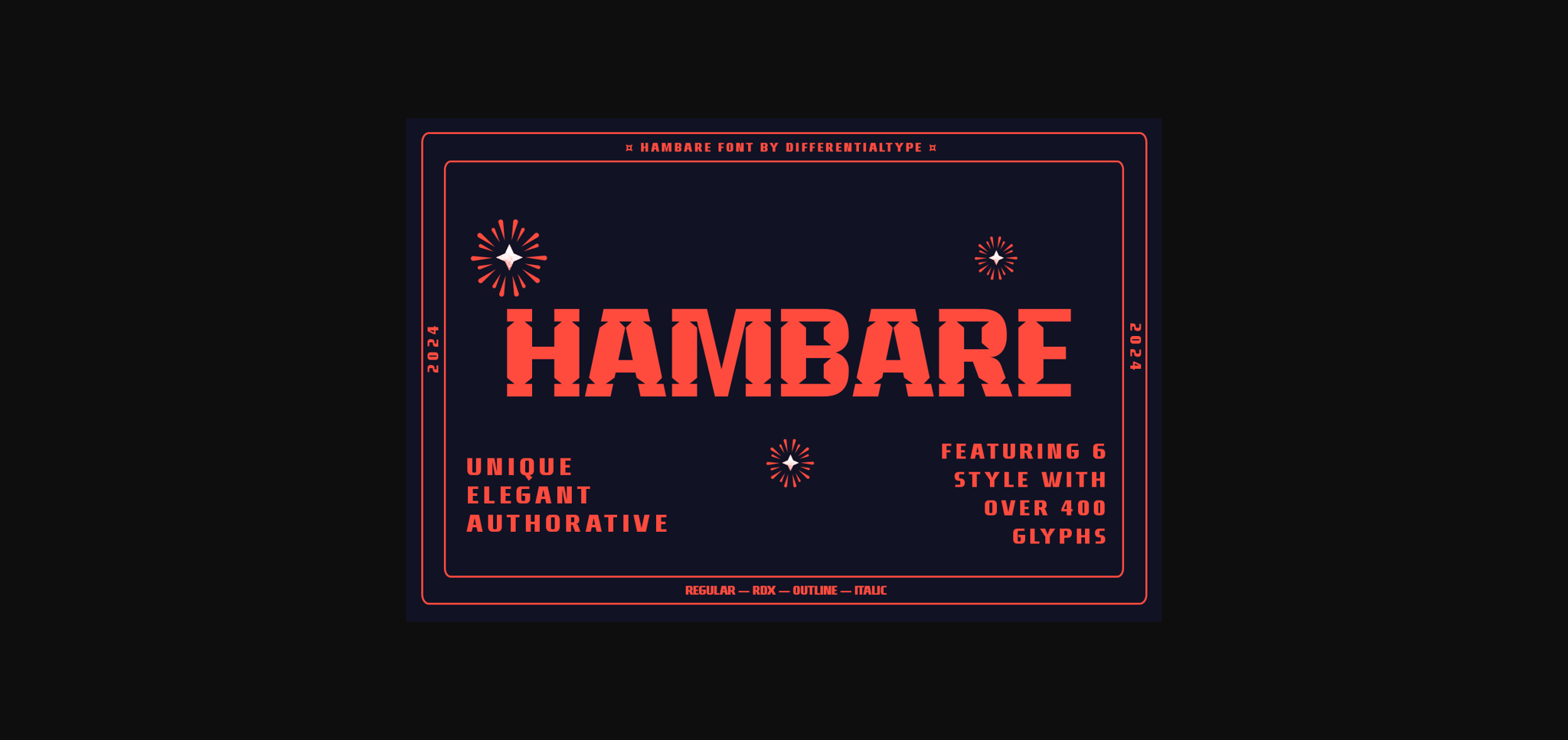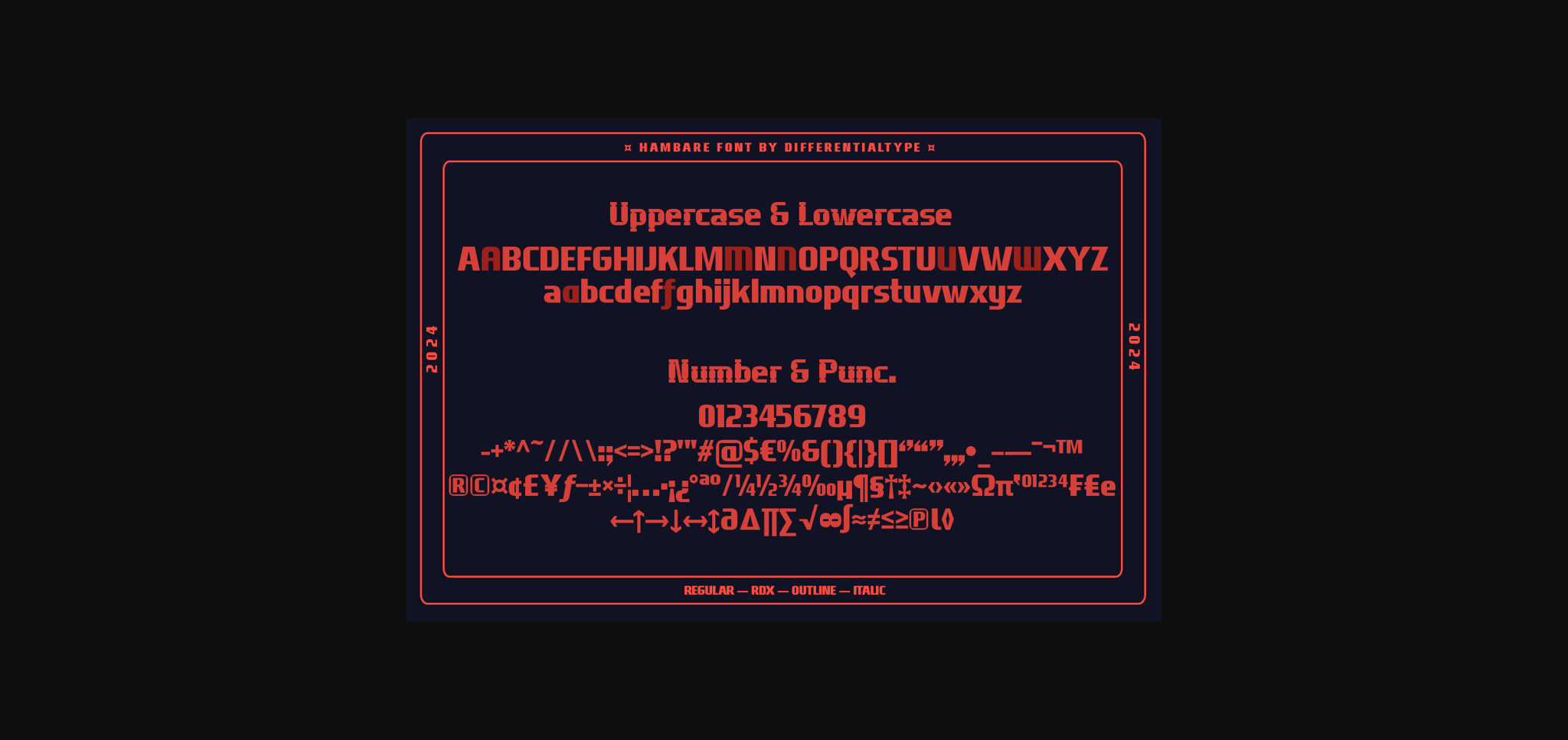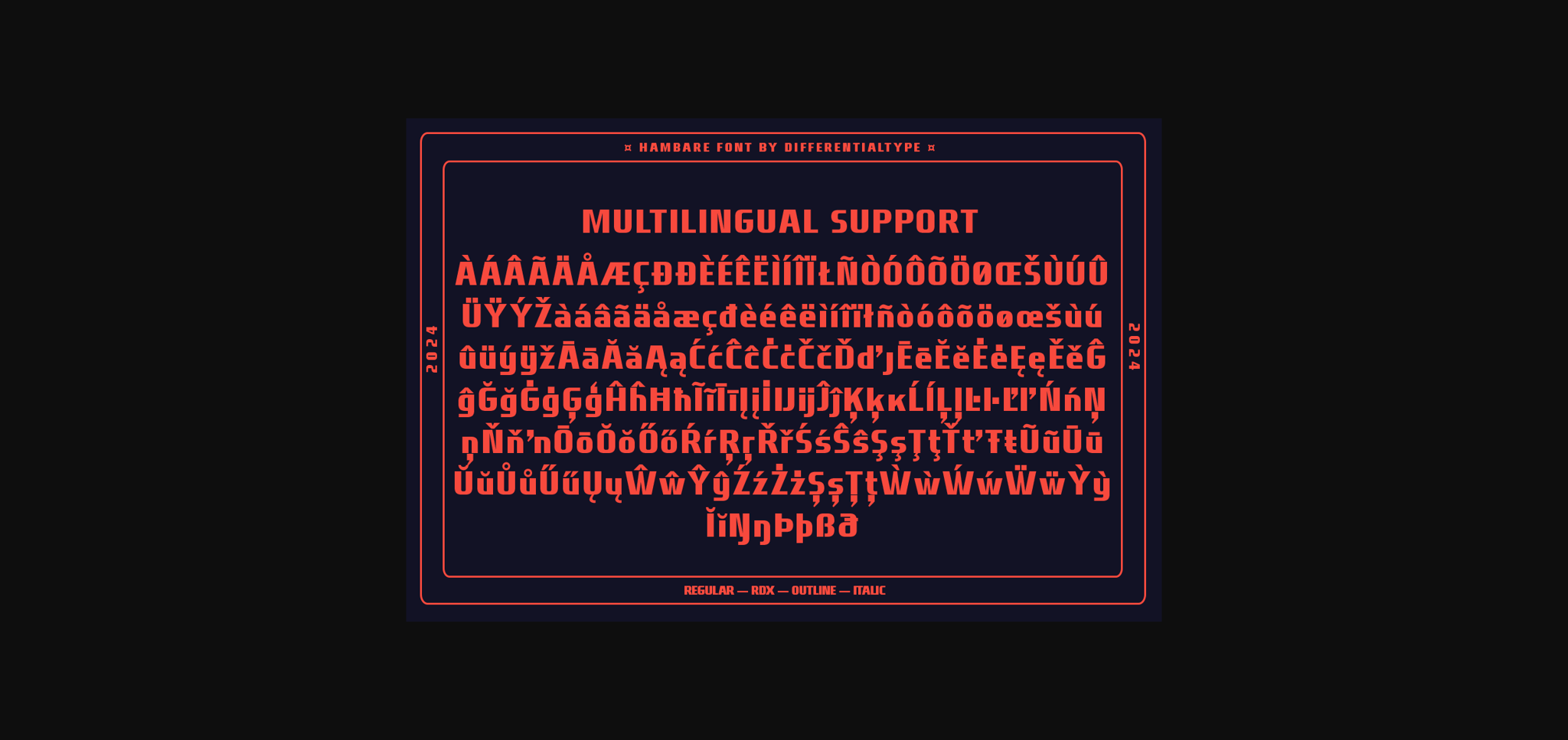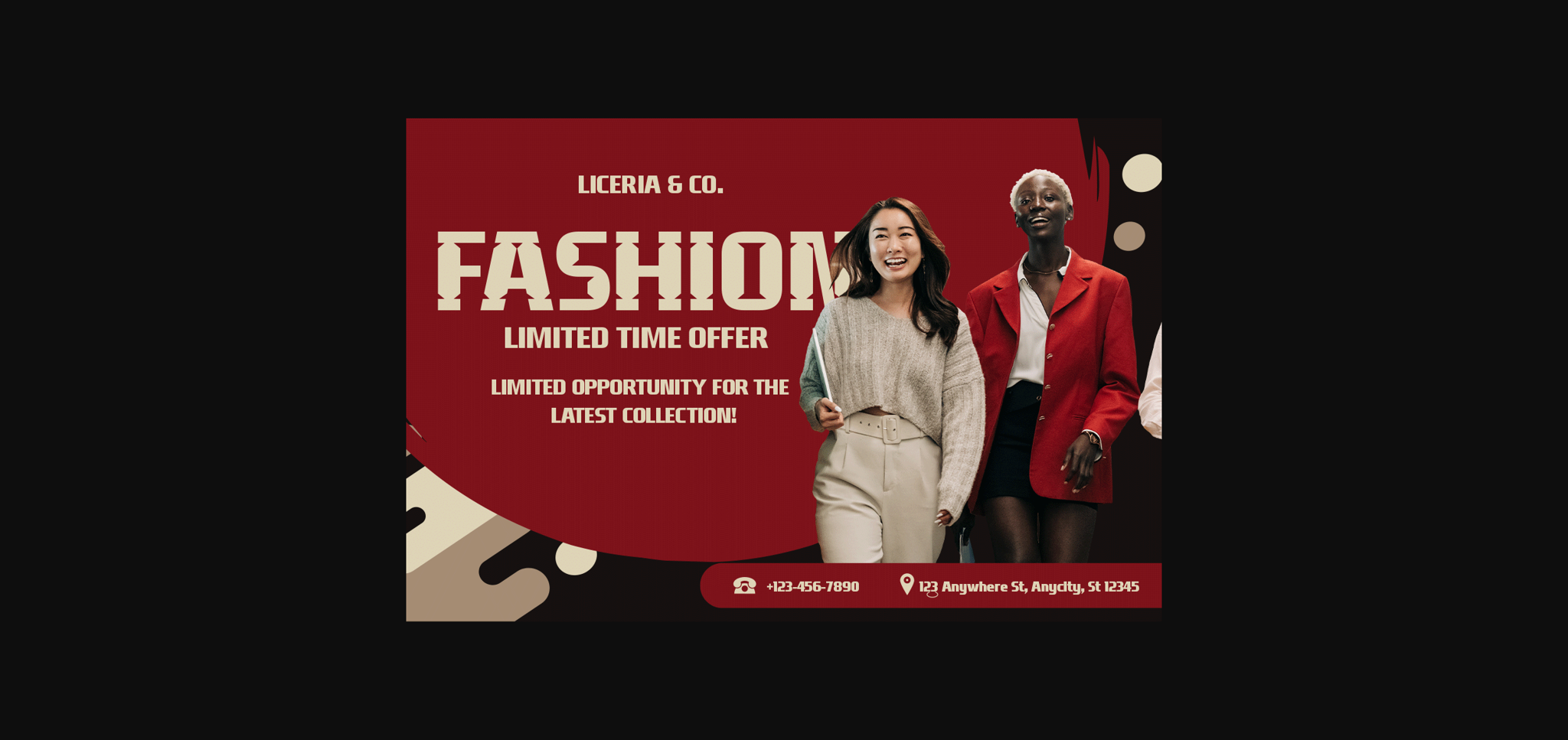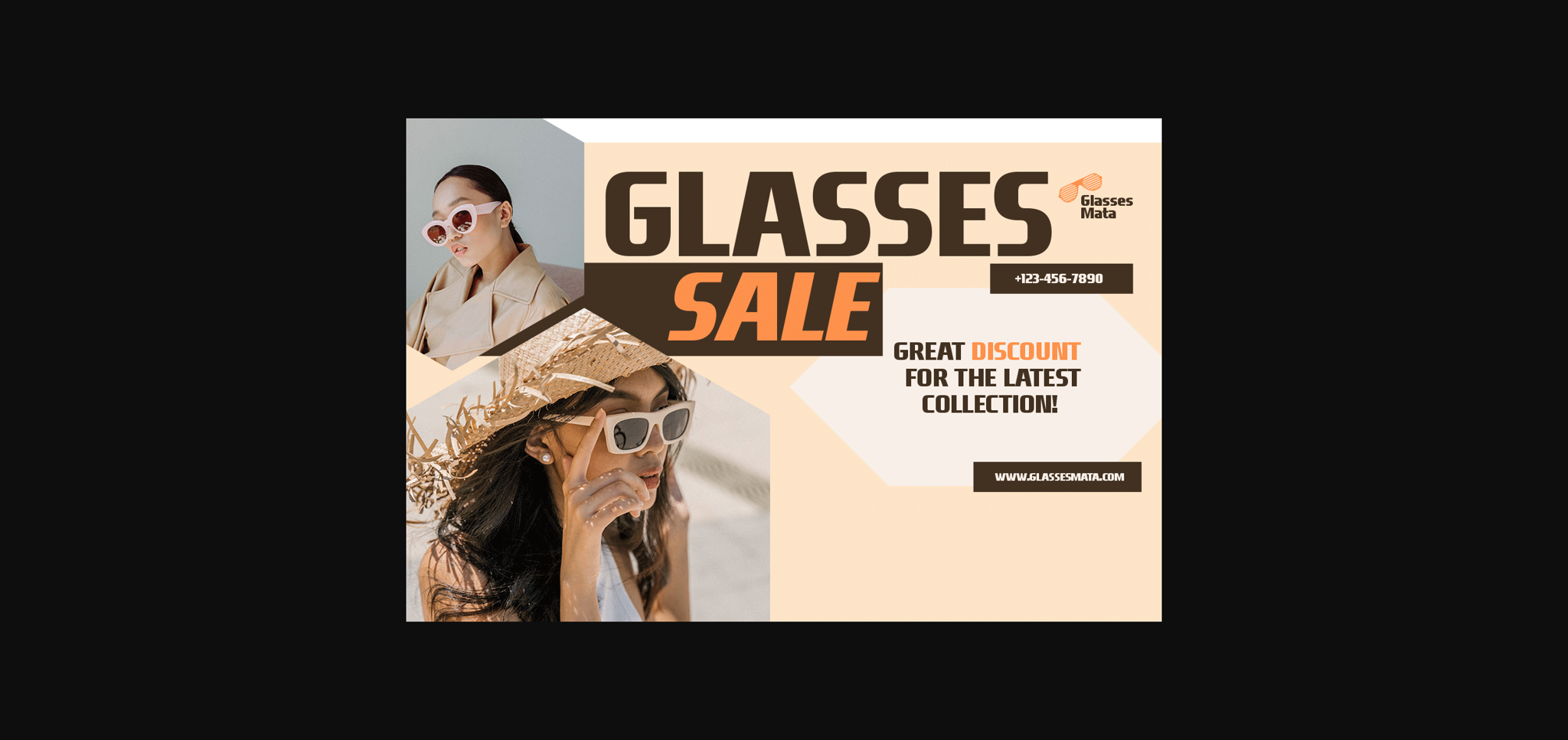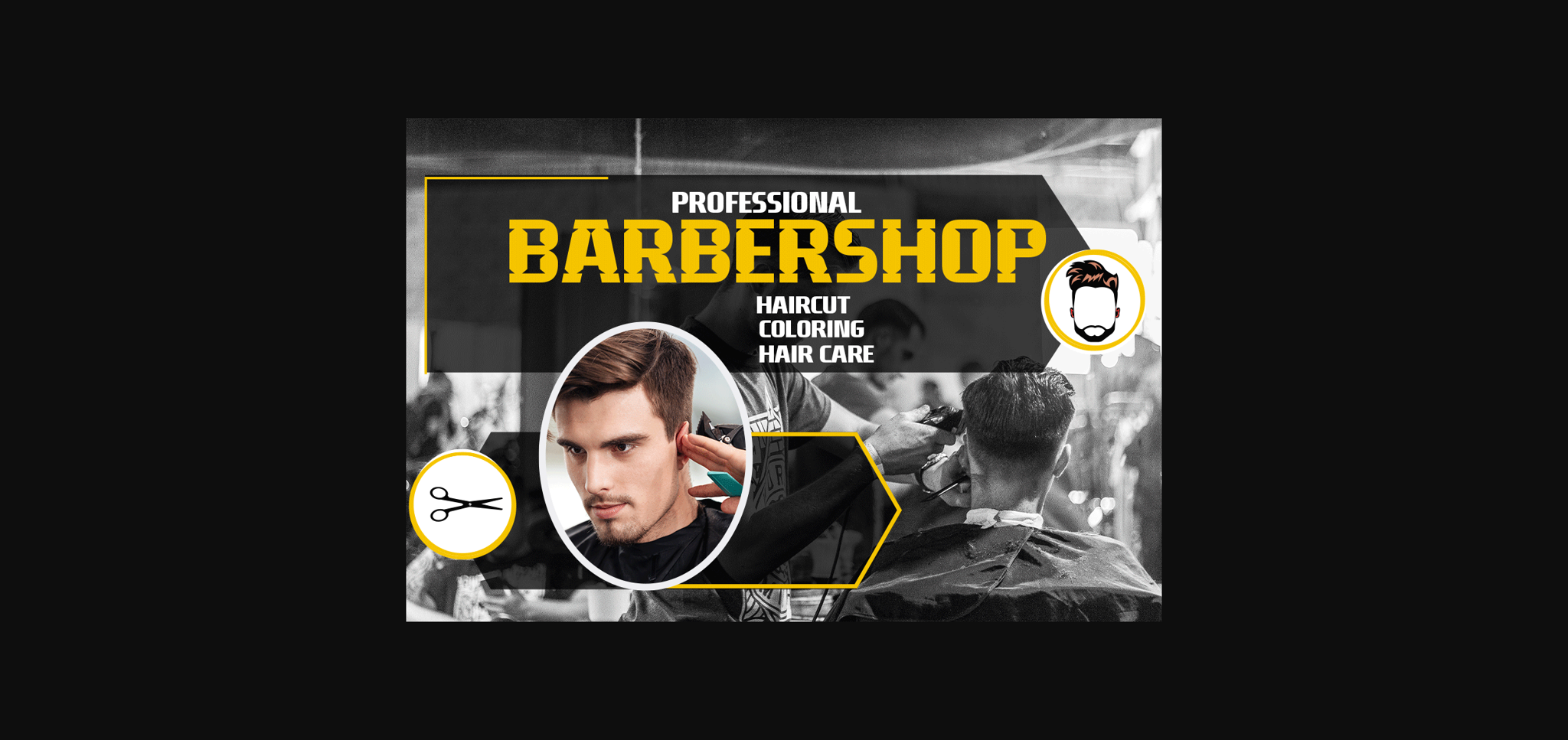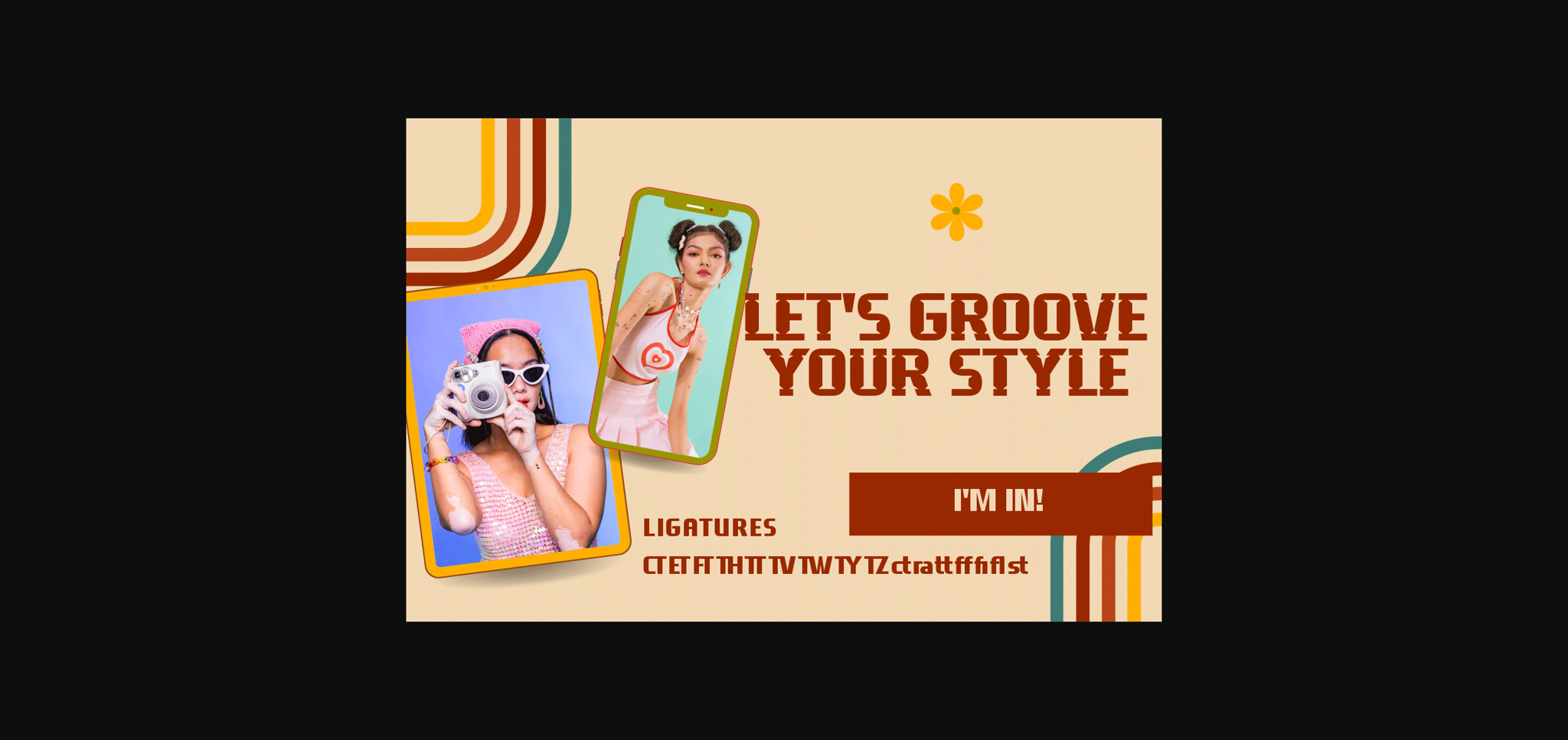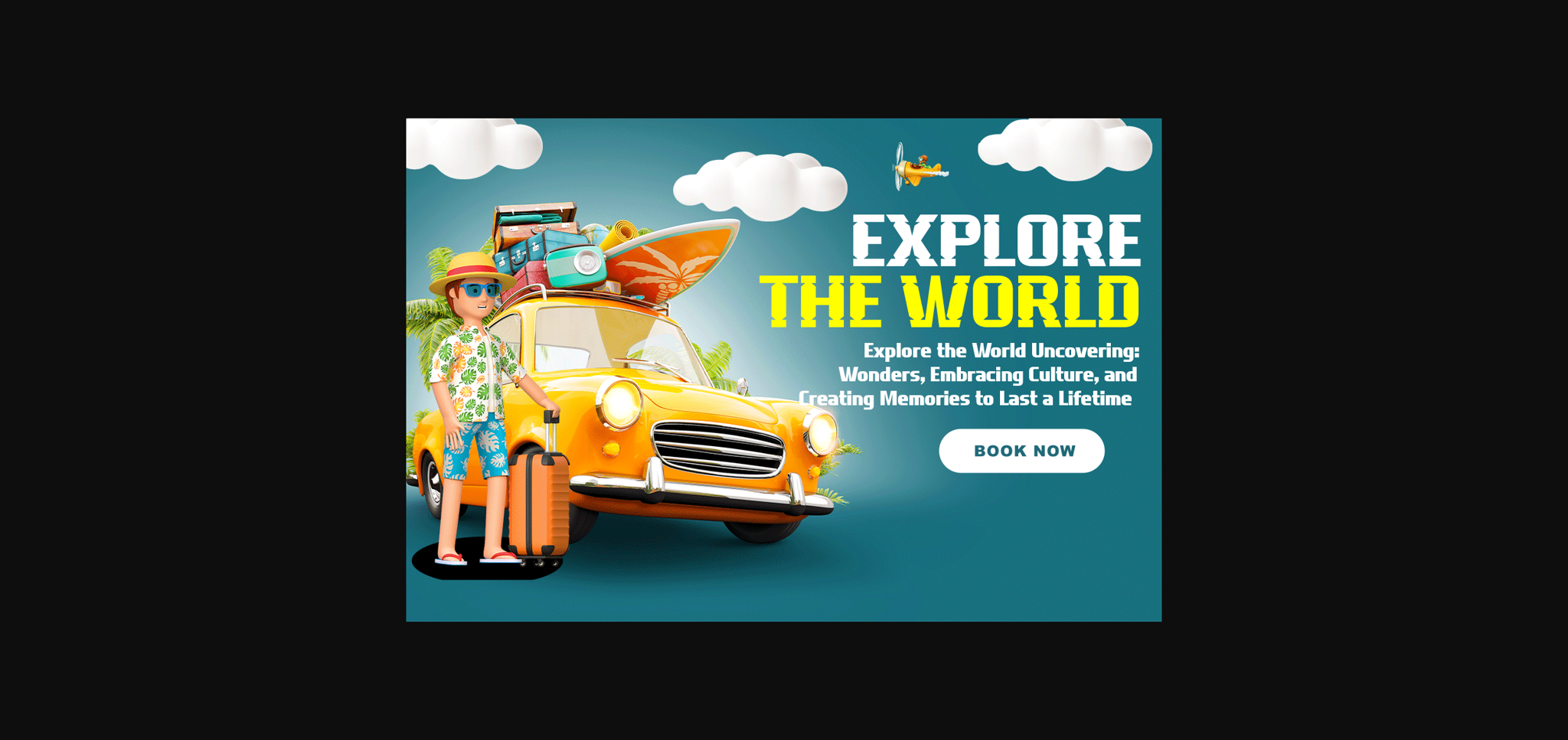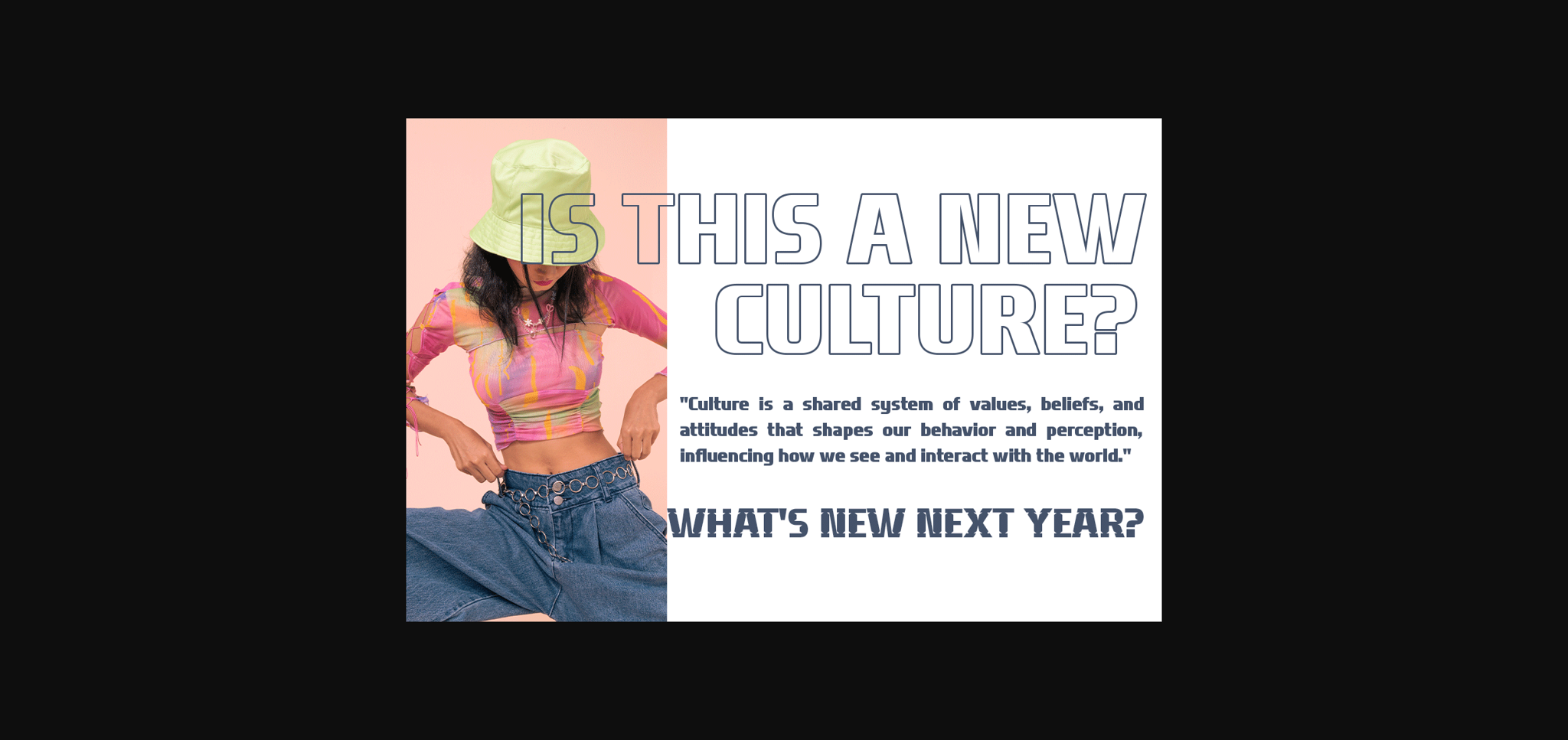
Hambare Font
About Hambare Font
Hambare is a sans serif font family that is bold, elegant, and futuristic. Its clean lines and balanced proportions make it an ideal choice for digital and print designs, ensuring readability and visual impact. Hamabare comes with six styles that you can mix and match. Add it to any design to provide the flexibility and visual impact you need to take your designs to the next level!